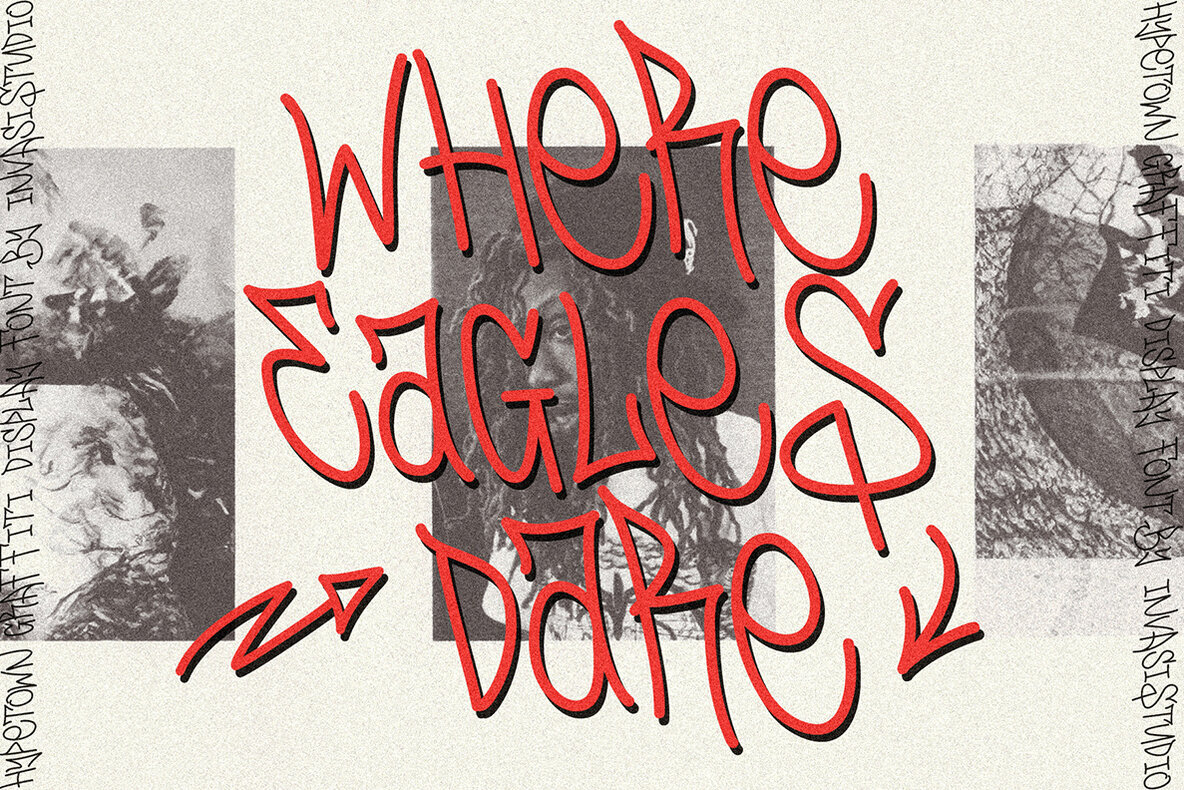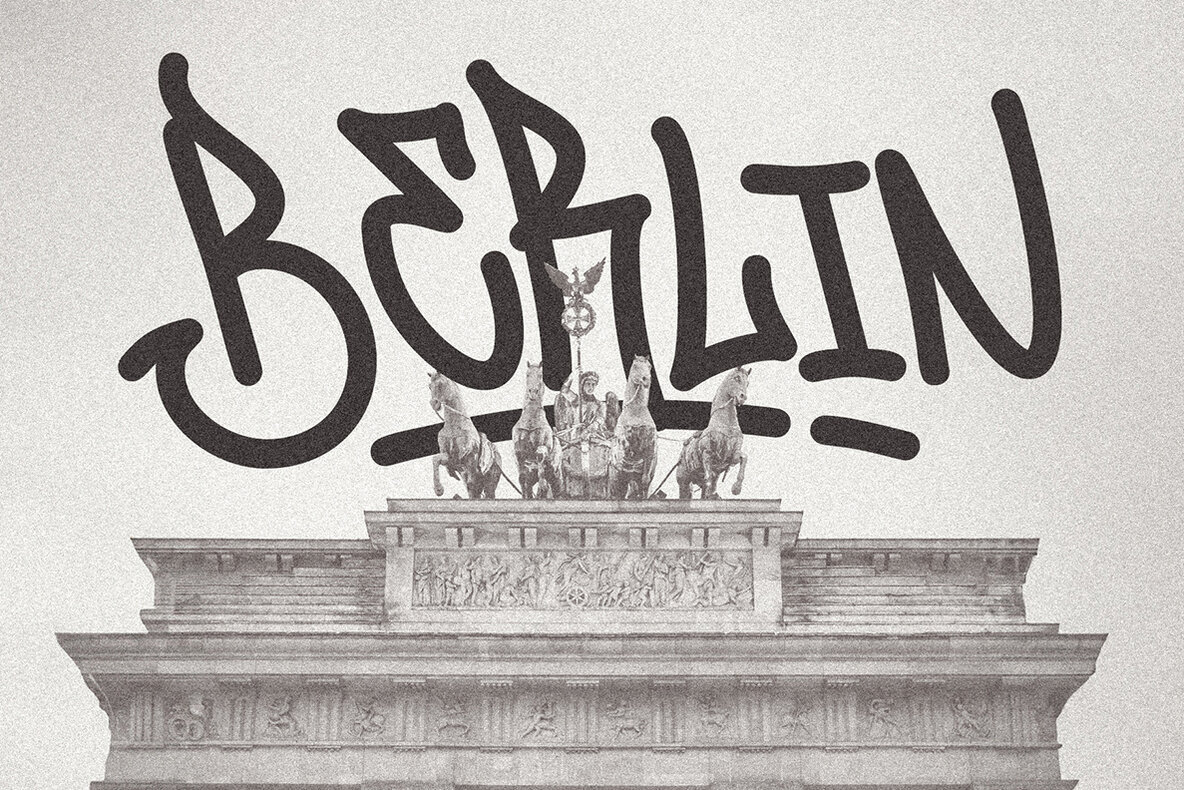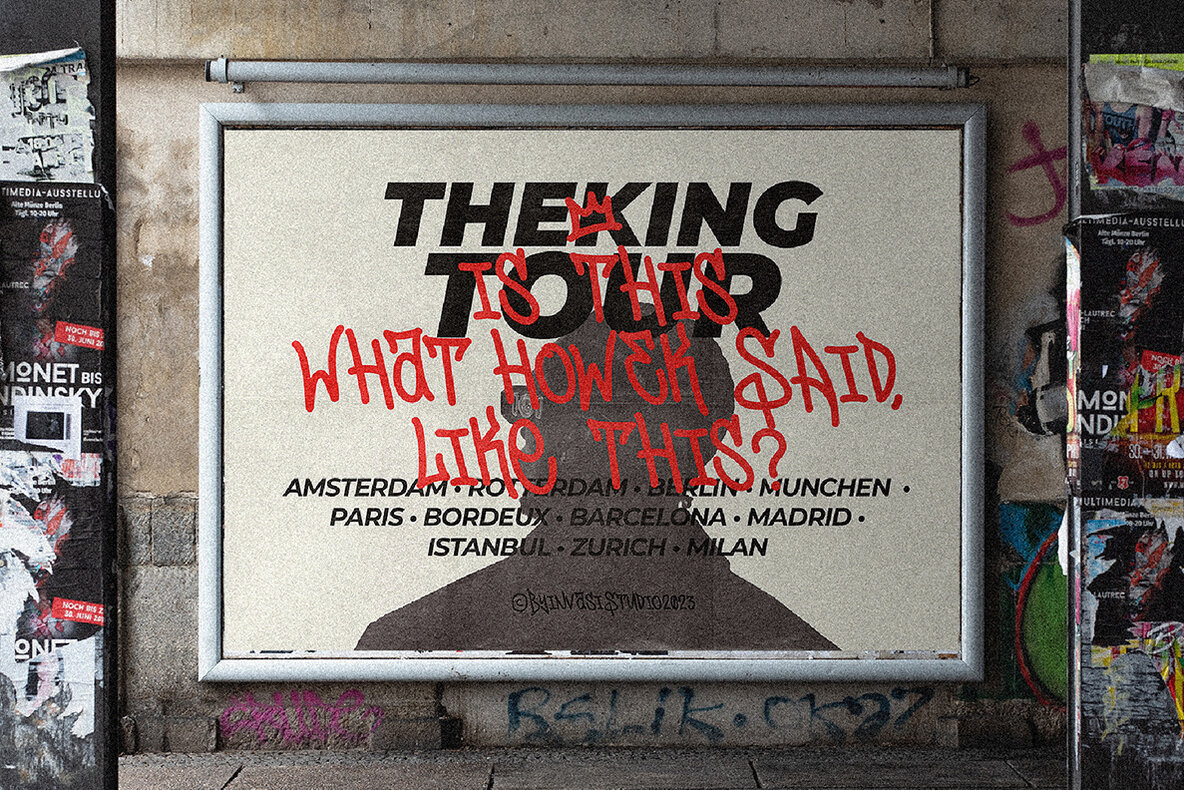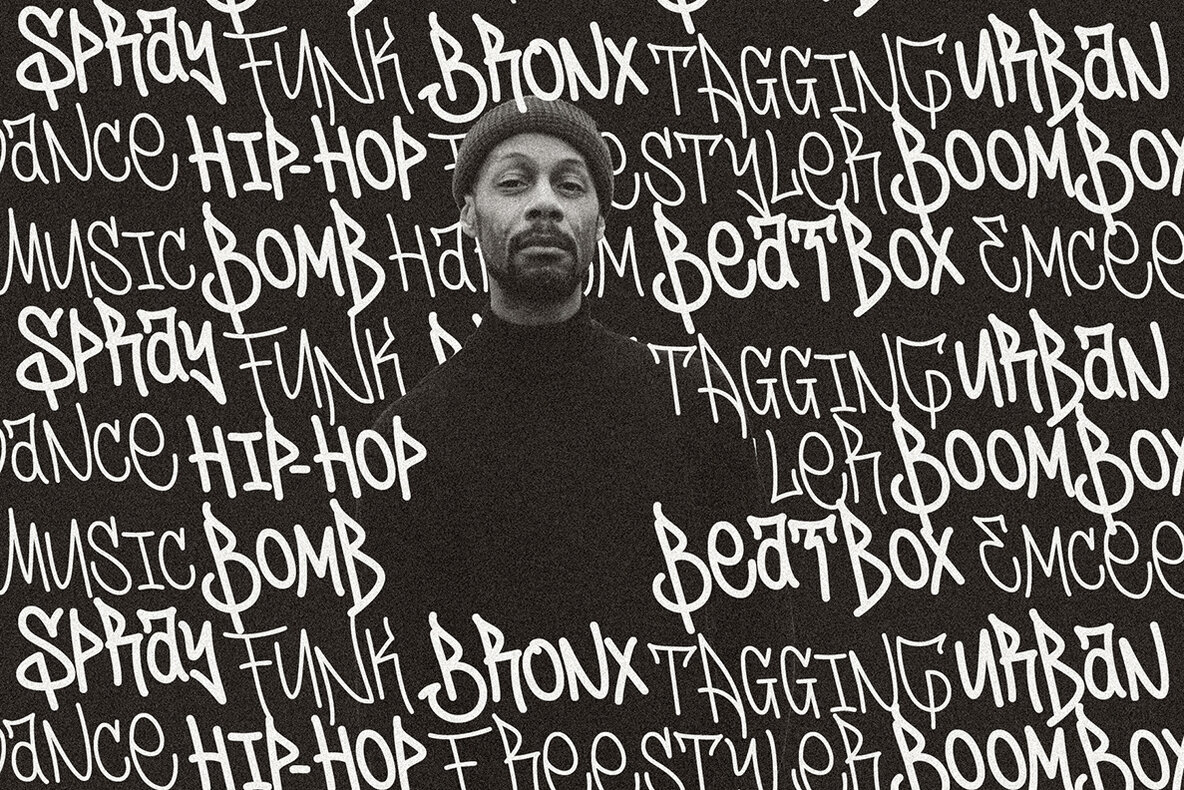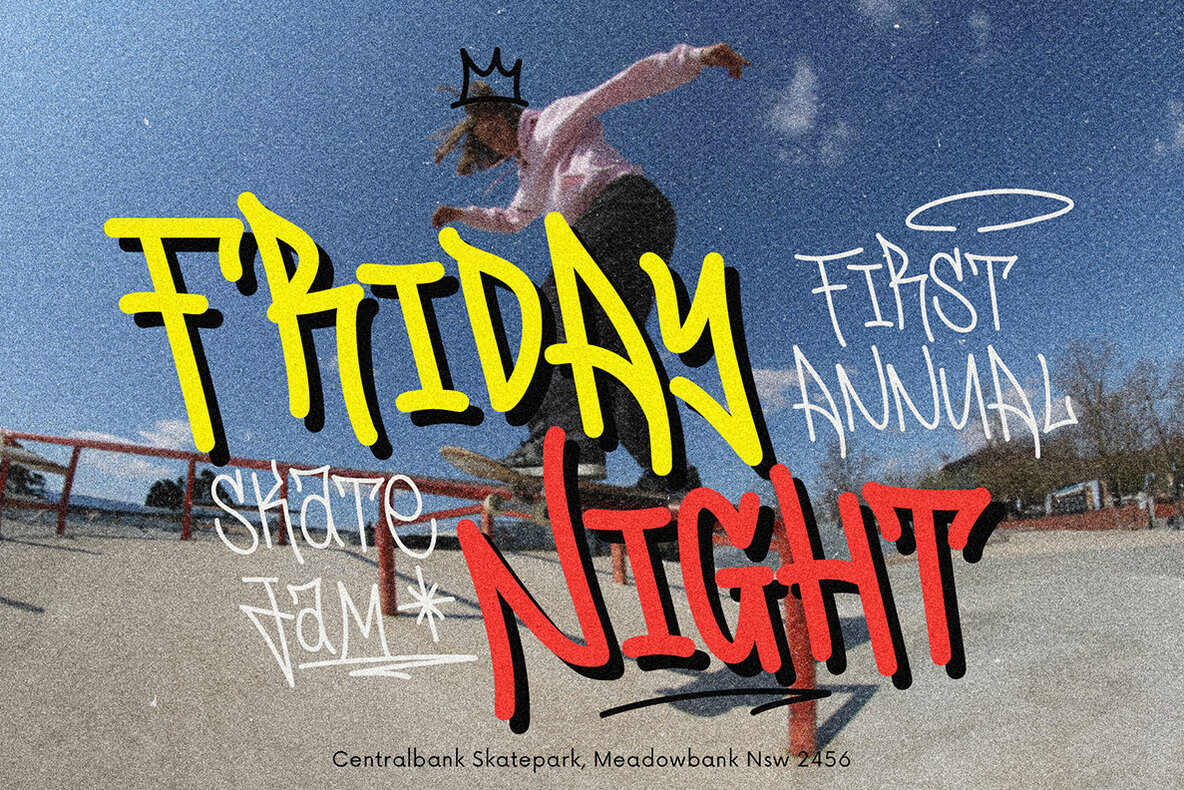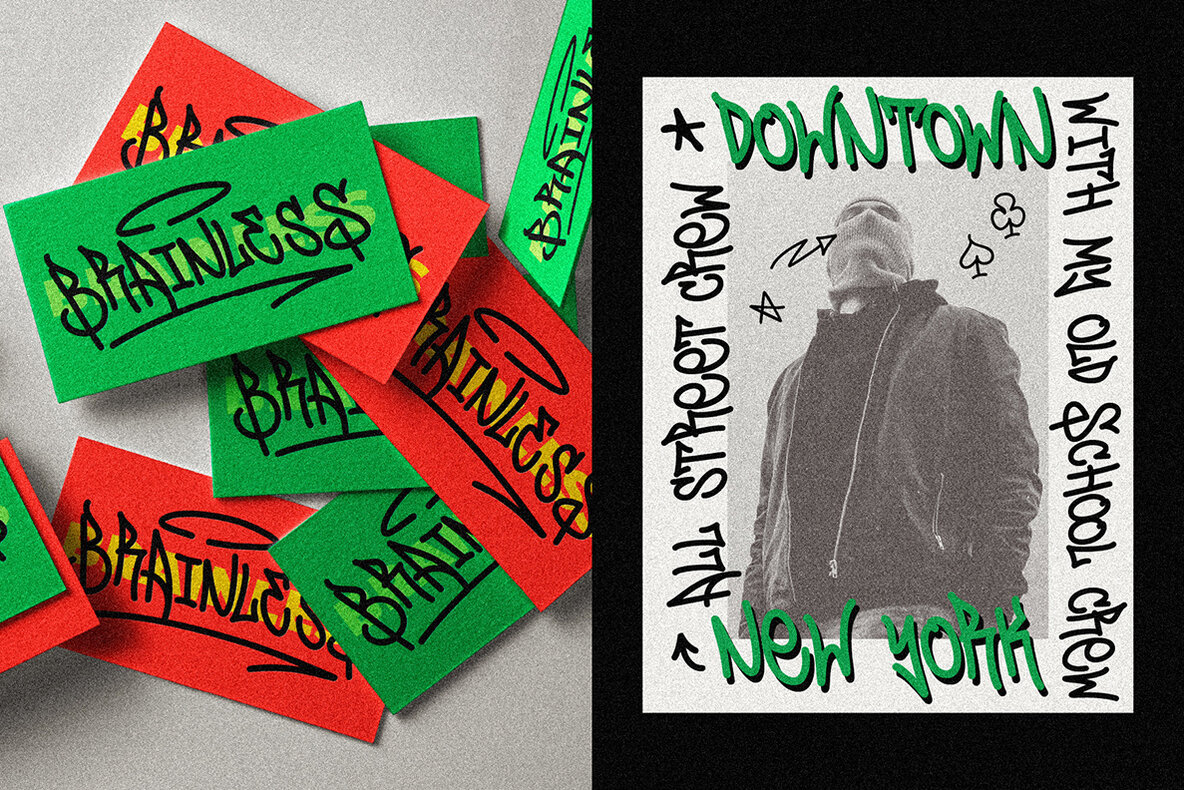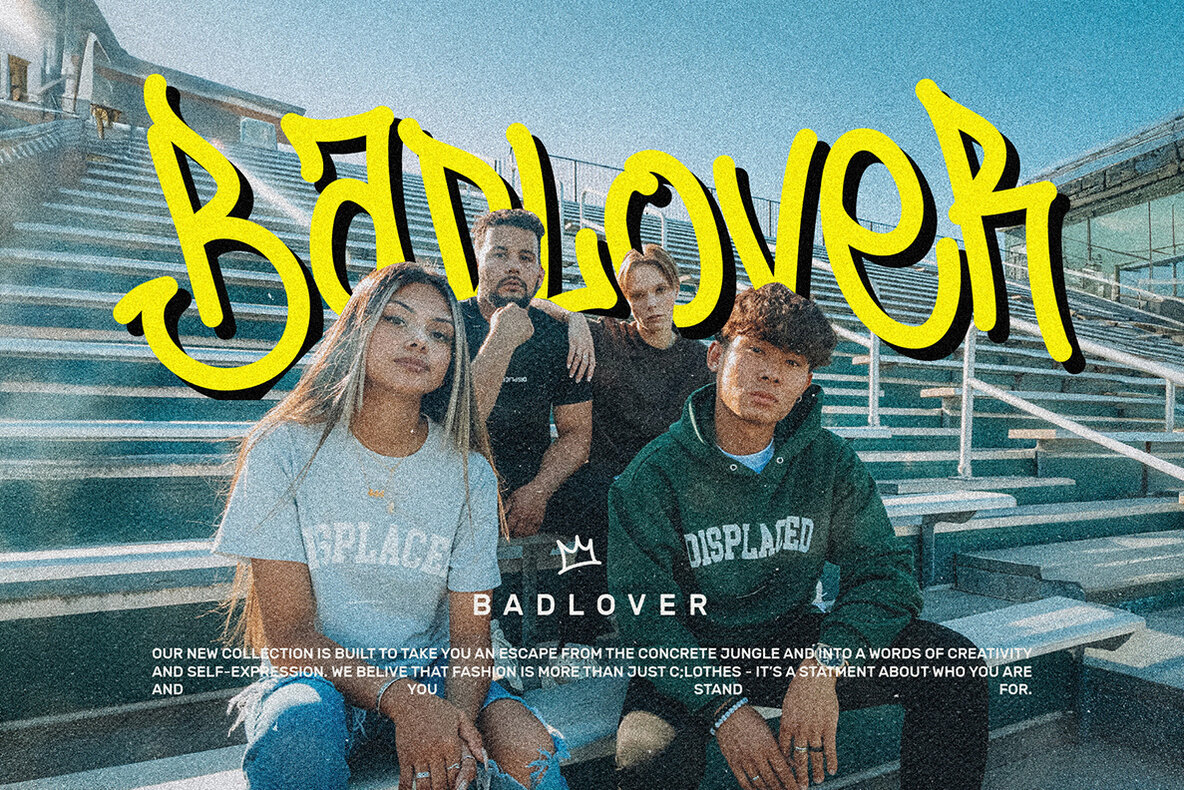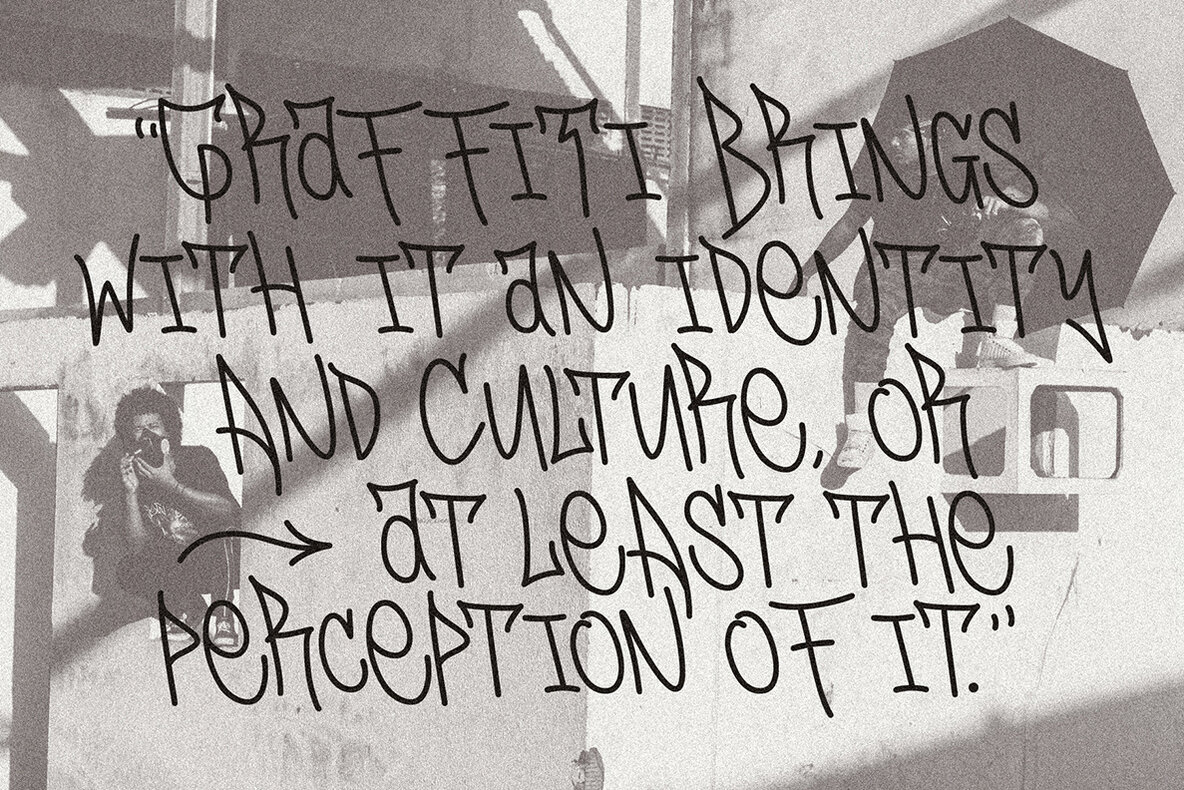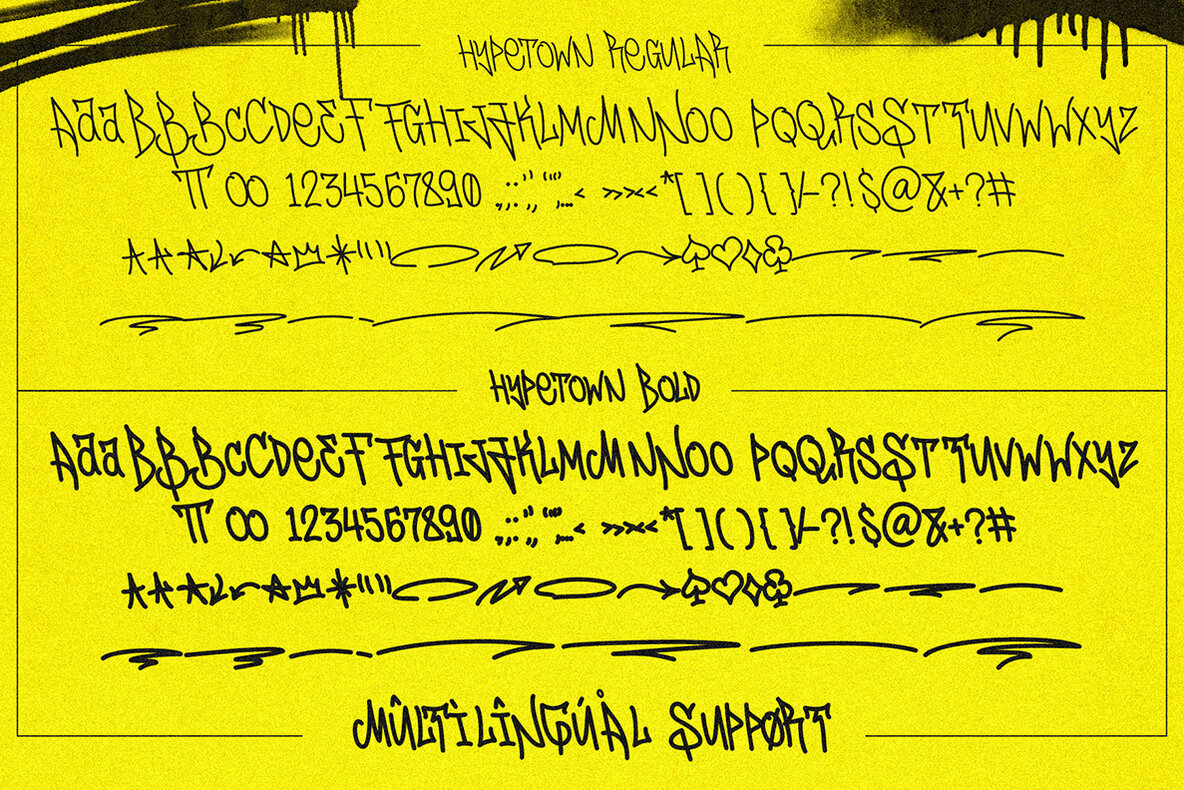
Hypetown Font
The Hypetown Font is wicked cool and inspired by urban lifestyles. It's bold, easy to read, and perfect for street art designs. You can choose from two styles - regular and bold - and there are alternate glyphs and multilingual Latin accents to make it even more awesome. Plus, there are swash decorative features that add some extra flair to your design. You can use the Hypetown Font for all sorts of things, like titles, logos, packaging, branding, and magazines. It's the perfect way to make a statement and make your words pop on any background. So go ahead and give it a try!